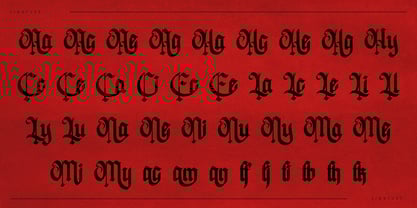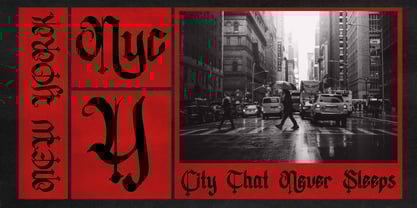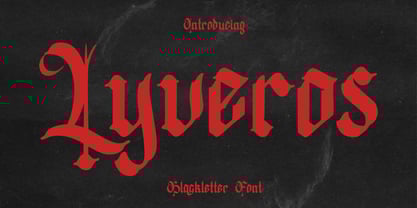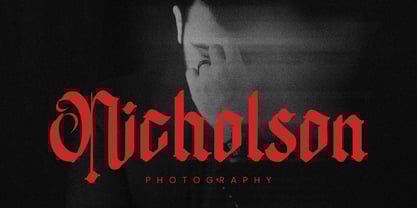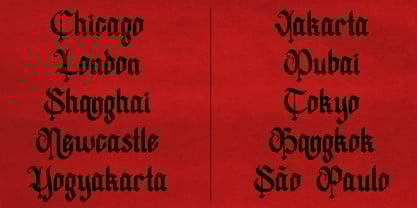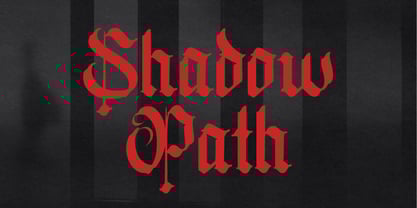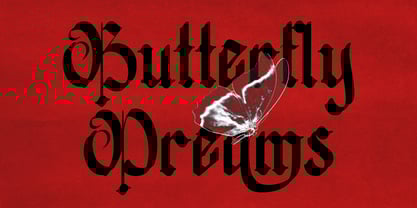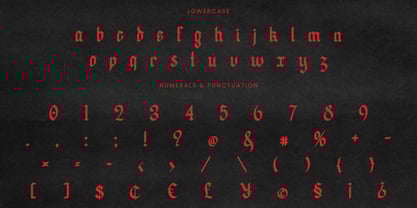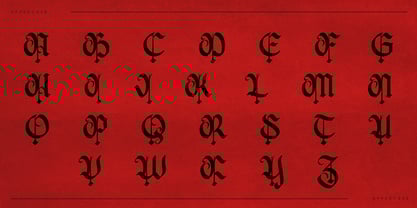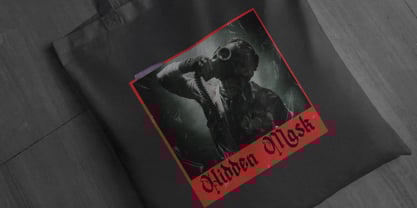
Lyveros
The Lyveros Font Family was designed by Randi Irvan and published by Rvandtype. Lyveros contains 1 styles.
Every letter tells a story of strength and mystery. Lyveros was born from the grandeur of medieval calligraphy, then refined with a bold modern touch. The result is a blackletter font that embodies elegance, power, and timeless character.
Perfectly suited for:
• Striking posters and headlines
• Logos and visual identities with a classic or mystical theme
• Book, magazine, and film covers
• Invitations and certificates in a traditional style
• Typography with vintage, gothic, horror, or fantasy vibes
Features:
• Complete uppercase & lowercase letters
• Numerals & punctuation
• Alternates & Ligatures for expressive letter combinations
• Multilingual support
With its sharp details and commanding presence, Lyveros delivers a gothic yet artistic atmosphere, making it the perfect choice for designers who want to create works that stand out with bold, dramatic flair.